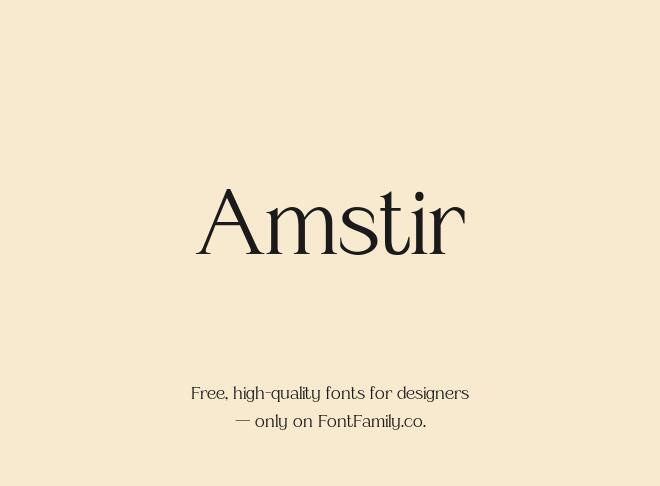
Amstir Font
Amstir Font is a modern and elegant typeface that combines simplicity and sophistication. Its clean lines and sleek curves make it an excellent choice for a variety of design projects, from branding and logo design to web design and print media. The font is reminiscent of popular typefaces such as Futura and Helvetica, but with a distinct character that sets it apart. Its modern aesthetic makes it perfect for businesses and brands looking to convey a sense of professionalism and sophistication, while its elegant design makes it equally suitable for creative projects that require a touch of class and refinement. Despite its modern design, Amstir Font is incredibly versatile, making it a great choice for any designer looking for a typeface that can adapt to a wide range of contexts and mediums.